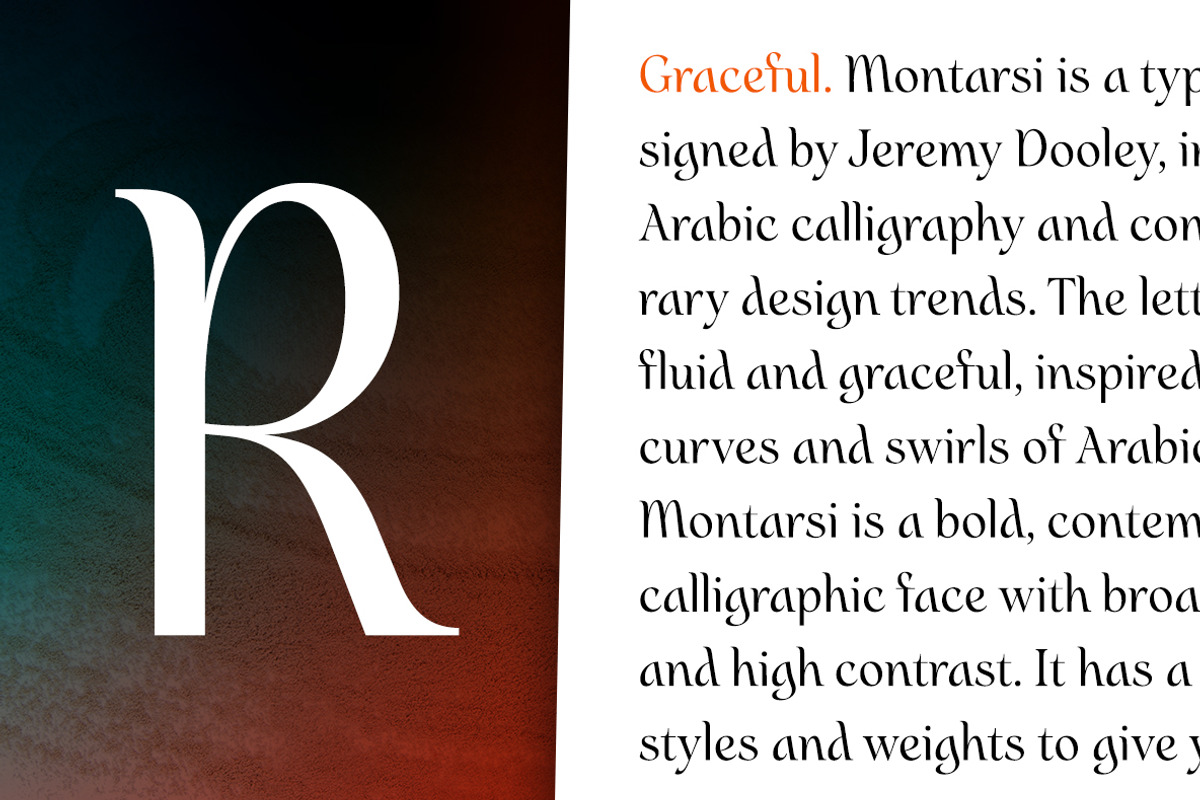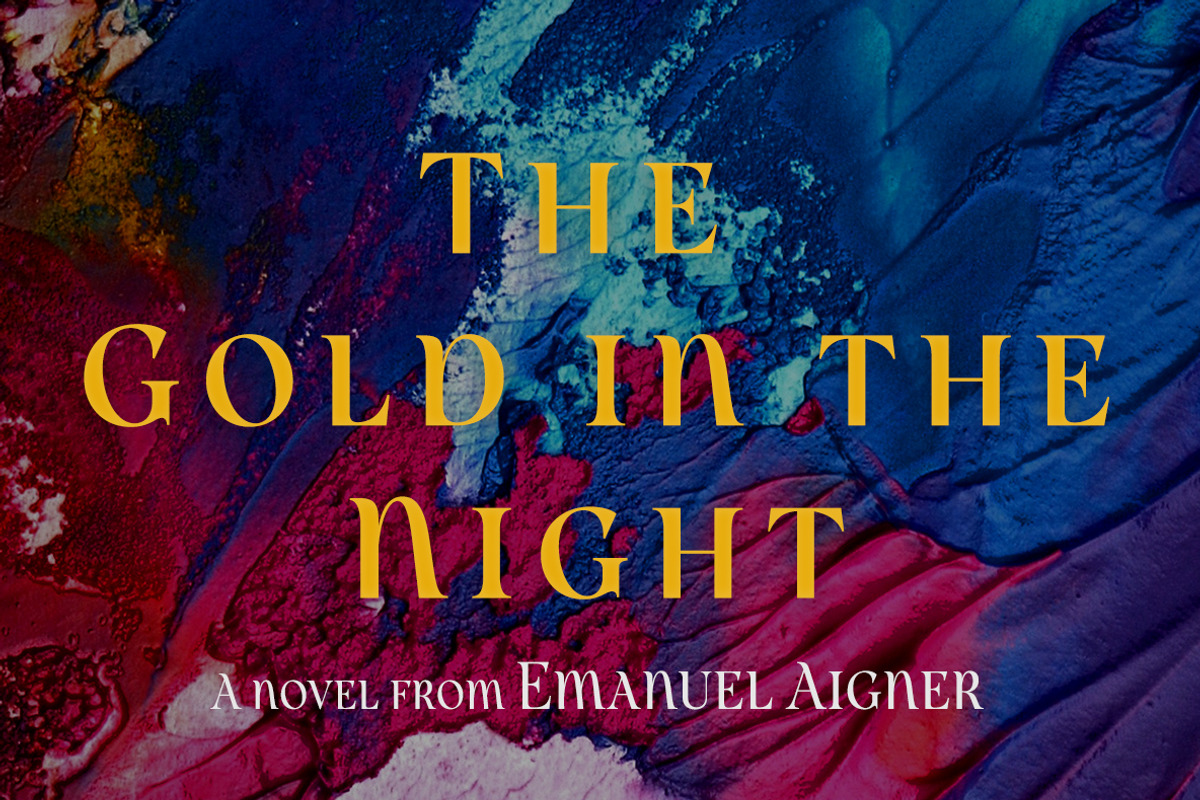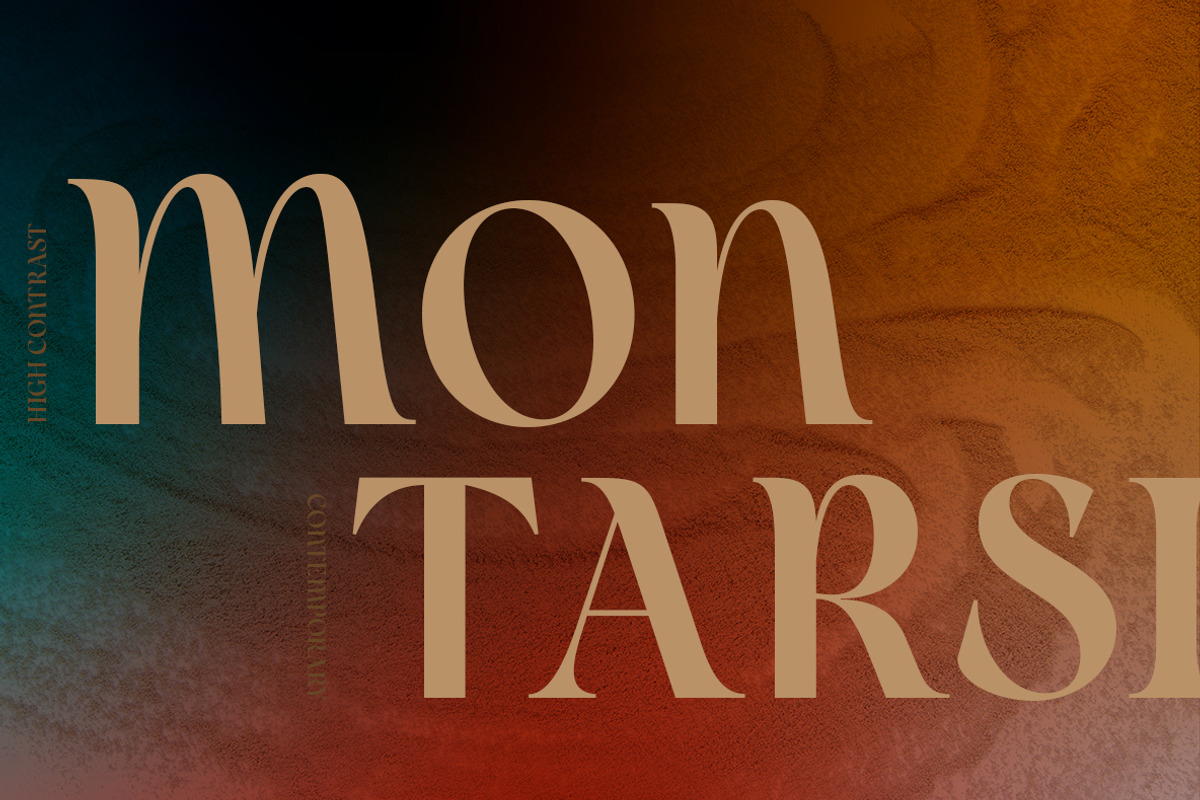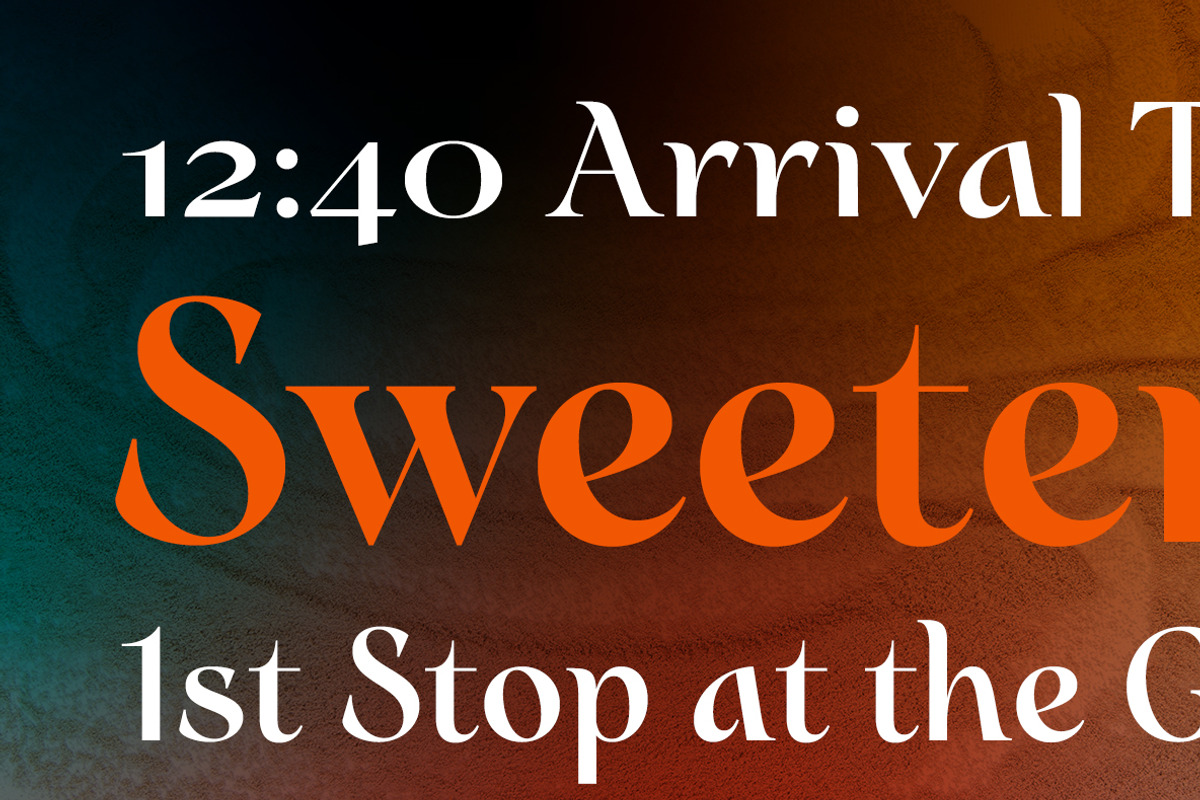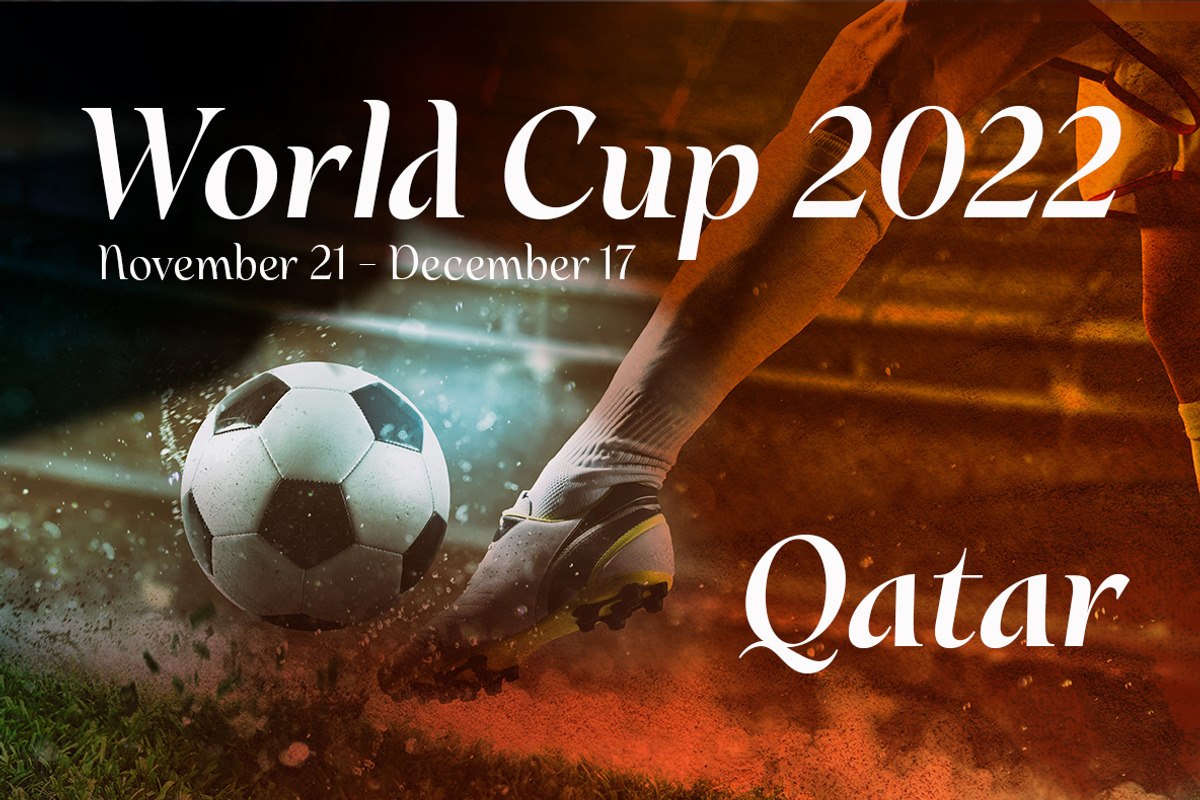
Montarsi
Montarsi is a typeface designed by Jeremy Dooley, inspired by Arabic calligraphy and contemporary design trends. The letters are fluid and graceful, inspired by the curves and swirls of Arabic script.
Montarsi is a bold, contemporary calligraphic face with broad strokes and high contrast. It has a variety of styles and weights to give you an extensive range of design options.
This font family, which includes eight weights, is ideal for producing brief texts for editorial, fashion, branding, magazine, television, window displays, and other media applications. Small caps, old-style figures, and width variations are also included. It's ideal for writing brief sentences because of the increased x-height.
Montarsi is a classic spirit reinvented in a modern language, influenced by the delicate curves of letters and the way ink glides across paper.